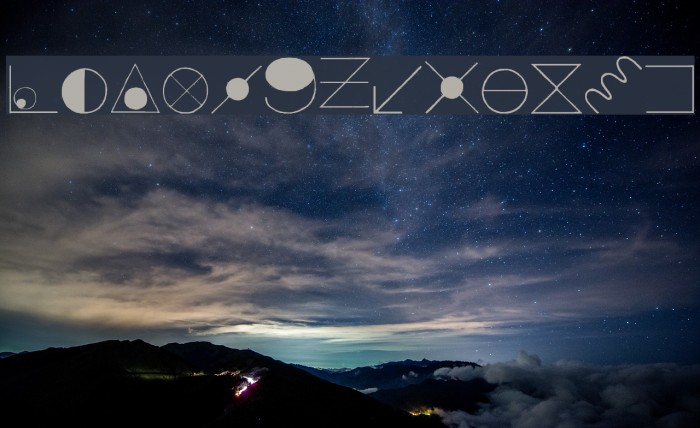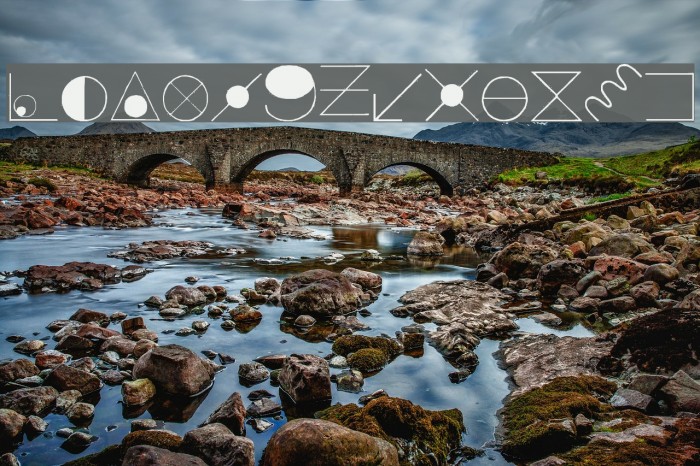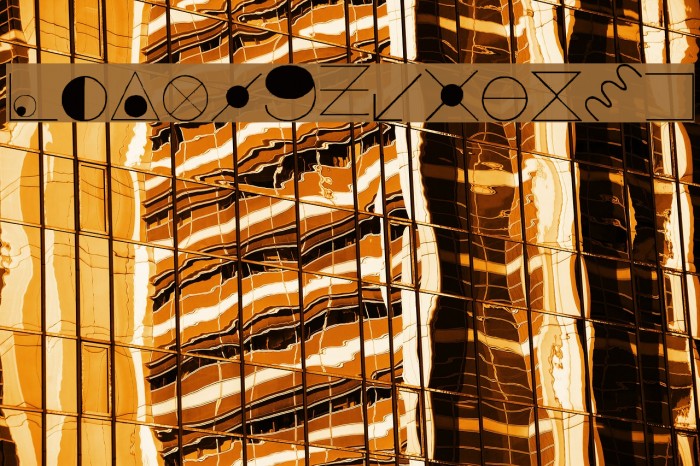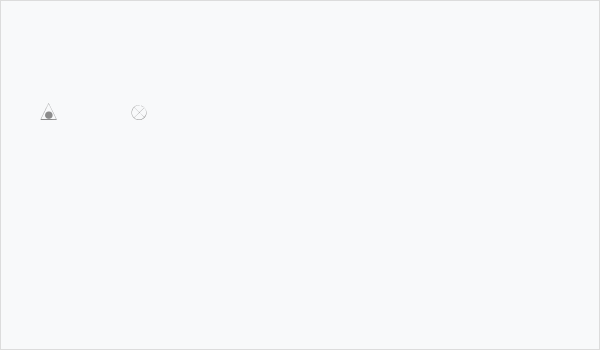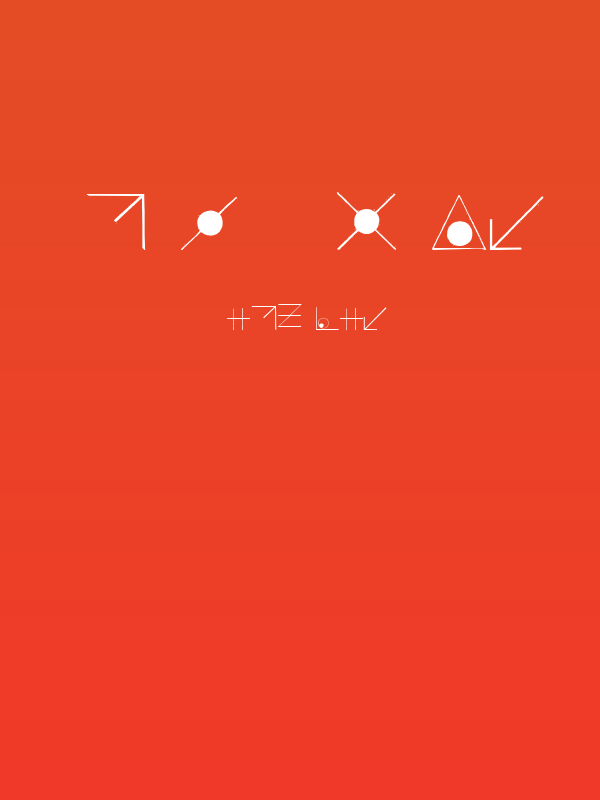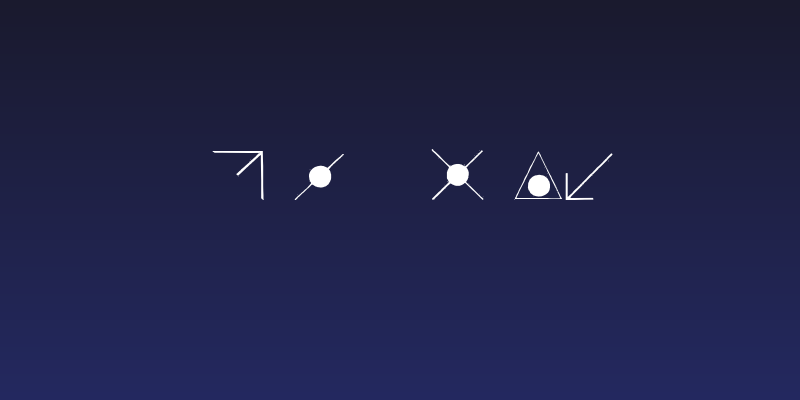
RoseXStitch Font
RoseXStitch Description
This design features a collection of geometric shapes and symbols rather than a traditional font. The elements include circles, triangles, lines, and other abstract forms, arranged in a pattern that suggests a coded or symbolic language. The design is highly stylized, with a focus on symmetry and balance, creating a visually striking and modern aesthetic. The use of bold, solid shapes gives it a strong presence, while the variety of forms adds a playful and dynamic quality. This design is not suitable for typical text representation but serves as an artistic or decorative element.
| Use Case | Logos, Art installations, Graphic design |
| Proposed Projects | Ideal for use in modern art pieces, graphic design projects, or as decorative elements in digital media. |